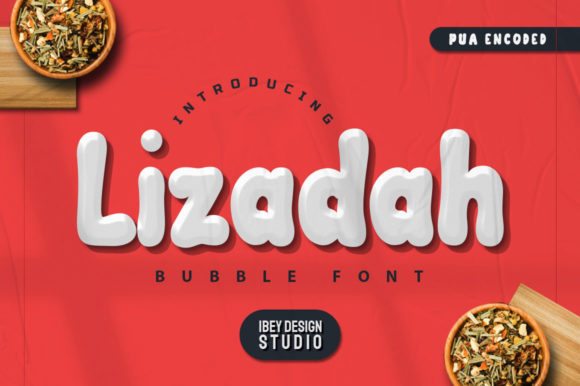
Journey into the world of Lizadah Font, a vibrant and playful creation from the design house of ibeydesign. This captivating font takes center stage in the world of display fonts, exuding an aura of youth, joy, and unbridled imagination. Dive into the depths of its unique character set, where each letter dances with energy, adding a touch of whimsy to your creative projects.
Lizadah Font isn't just a font; it's a visual symphony that captures the essence of childhood wonder. Its bubbly, handwritten style evokes memories of laughter-filled playgrounds, carefree summer days, and the magic of make-believe. Let your creativity soar as you craft designs that resonate with the innocent charm of youth.
Whether you're designing for school projects, crafting invitations for unforgettable children's parties, or creating playful marketing materials, Lizadah Font is your ultimate companion. Its versatility knows no bounds, seamlessly adapting to a wide range of design styles. Embrace the charm of Lizadah Font for logos, branding, posters, packaging, and more. Let your designs ignite imaginations and leave a lasting impression.
Let your imagination run wild as you explore the endless possibilities of Lizadah Font. Its bold and distinctive style effortlessly draws attention, making your designs pop with personality. Captivate your audience with eye-catching headlines, memorable quotes, or playful slogans. Let Lizadah Font elevate your designs to new heights, leaving a trail of smiles and lasting memories wherever it goes.
Welcome to the world of Lizadah Font, where creativity wears a smile and imagination knows no limits. Let this font ignite the spark of joy in your designs and transport your audience to a realm of pure enchantment. Make Lizadah Font your trusted partner in creating designs that speak to the heart, inspire the soul, and leave an unforgettable mark.